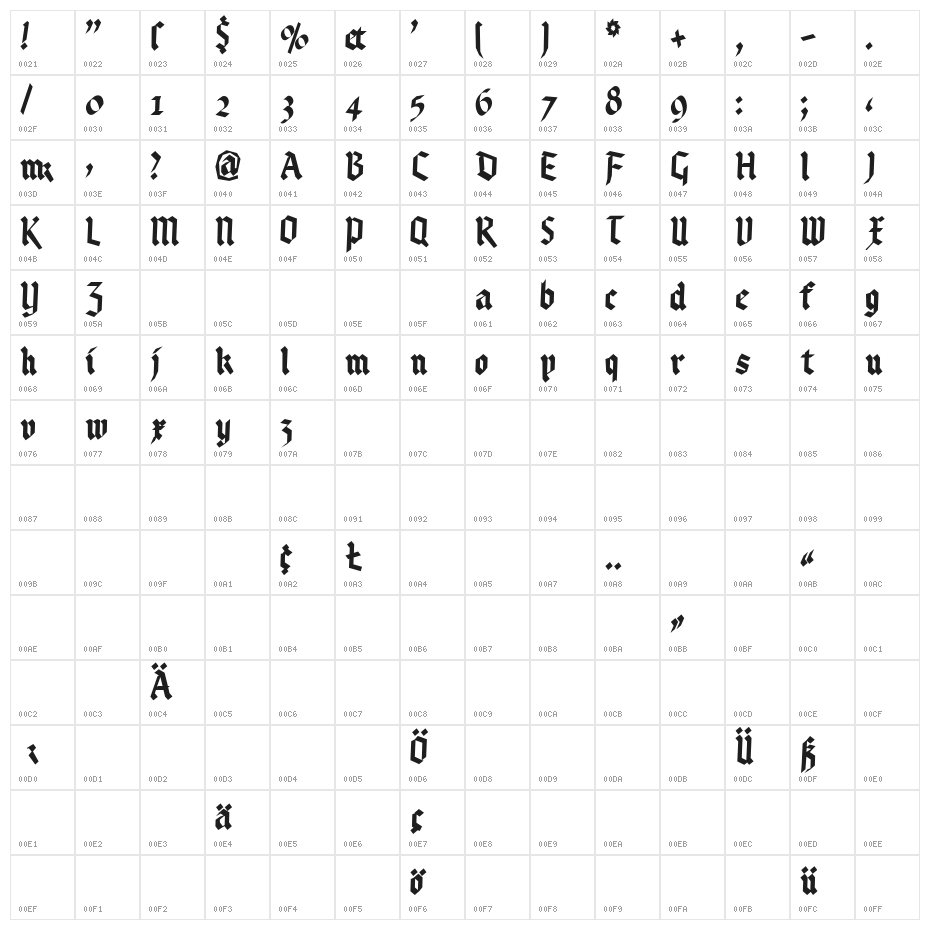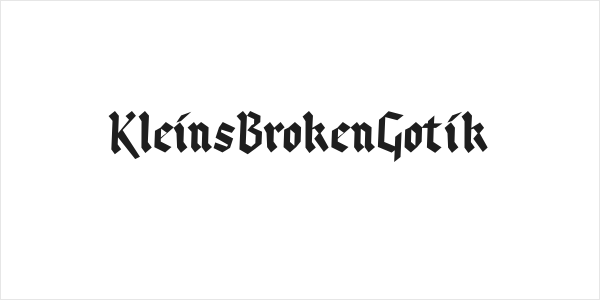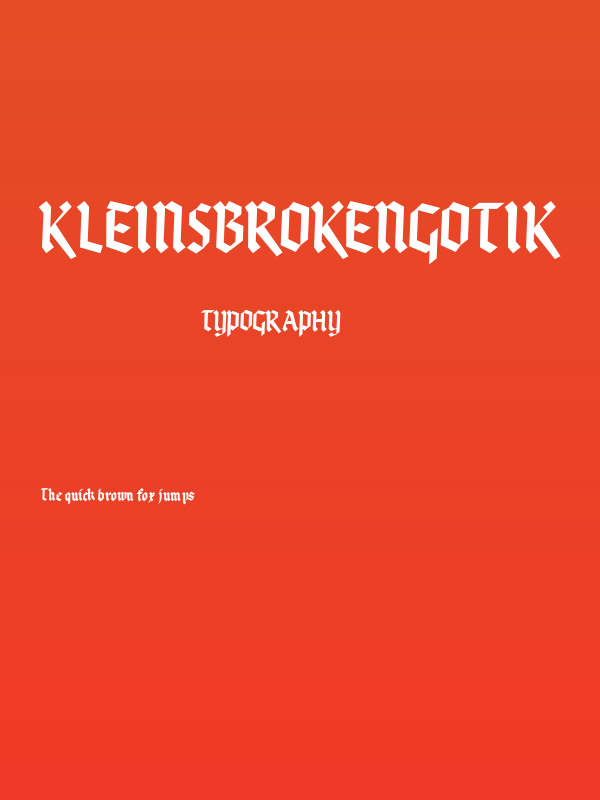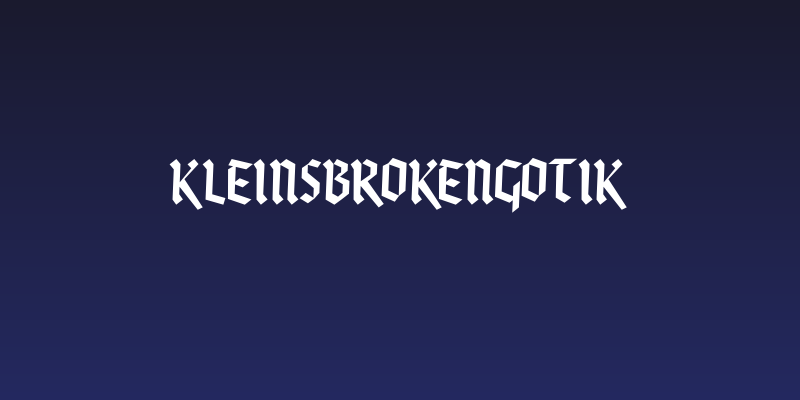
KleinsBrokenGotik Font
KleinsBrokenGotik Description
This font exhibits a traditional Blackletter style, characterized by its sharp, angular forms and dramatic contrast between thick and thin strokes. The uppercase letters are bold and commanding, with intricate details that evoke a sense of historical gravitas. The lowercase letters maintain the same angularity, providing a cohesive look across the typeface. Numbers and special characters are designed with the same attention to detail, ensuring consistency throughout. The overall appearance is reminiscent of medieval manuscripts, making it ideal for projects that require a touch of antiquity and elegance.
| Proposed Projects | Suitable for historical documents, certificates, book covers, and branding that requires a medieval or gothic aesthetic. |